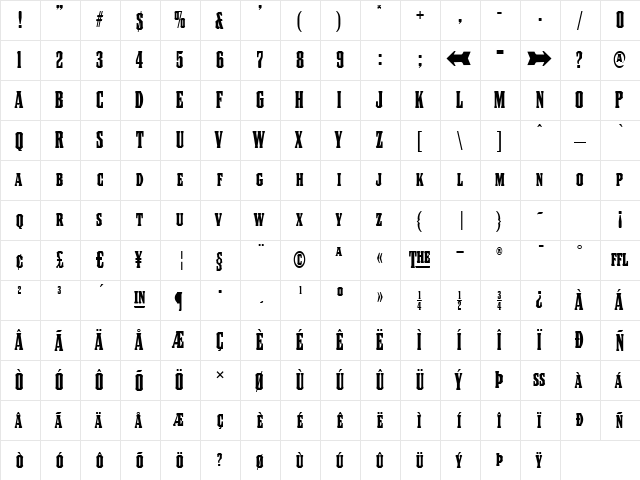
Council Regular
Design Context for Council Typeface
Council offers clean, dependable letterforms without strong stylistic allegiance, making it a practical choice for designers who need flexibility.